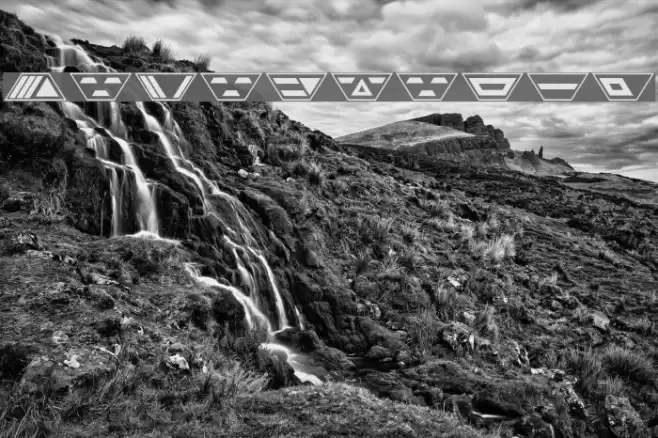
Gobotronic Font
Gobotronic Description
This font features a highly geometric and abstract design, with each character represented by a unique combination of lines and shapes within a trapezoidal frame. The style is reminiscent of futuristic or robotic aesthetics, with a strong emphasis on symmetry and angular forms. The characters are not immediately recognizable as traditional letters or numbers, making this font more suitable for decorative purposes rather than readability. The use of negative space and bold lines creates a striking visual impact, ideal for projects that require a modern and unconventional look.
A geometric, abstract font with futuristic and robotic aesthetics from Dingbats fonts.
- Proposed Projects: Ideal for sci-fi themed designs, futuristic branding, or decorative elements in digital art.
- Overall Style: Futuristic, Abstract
- Use Case: Logos, Decorative elements